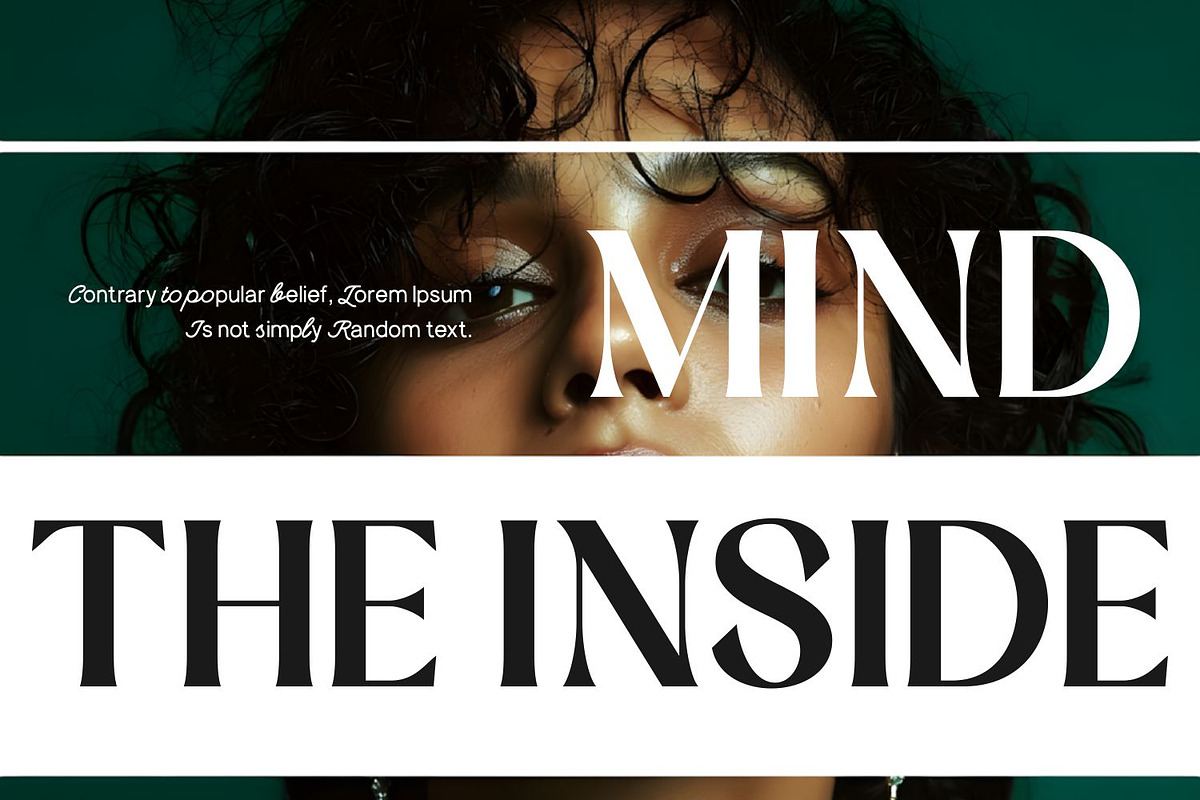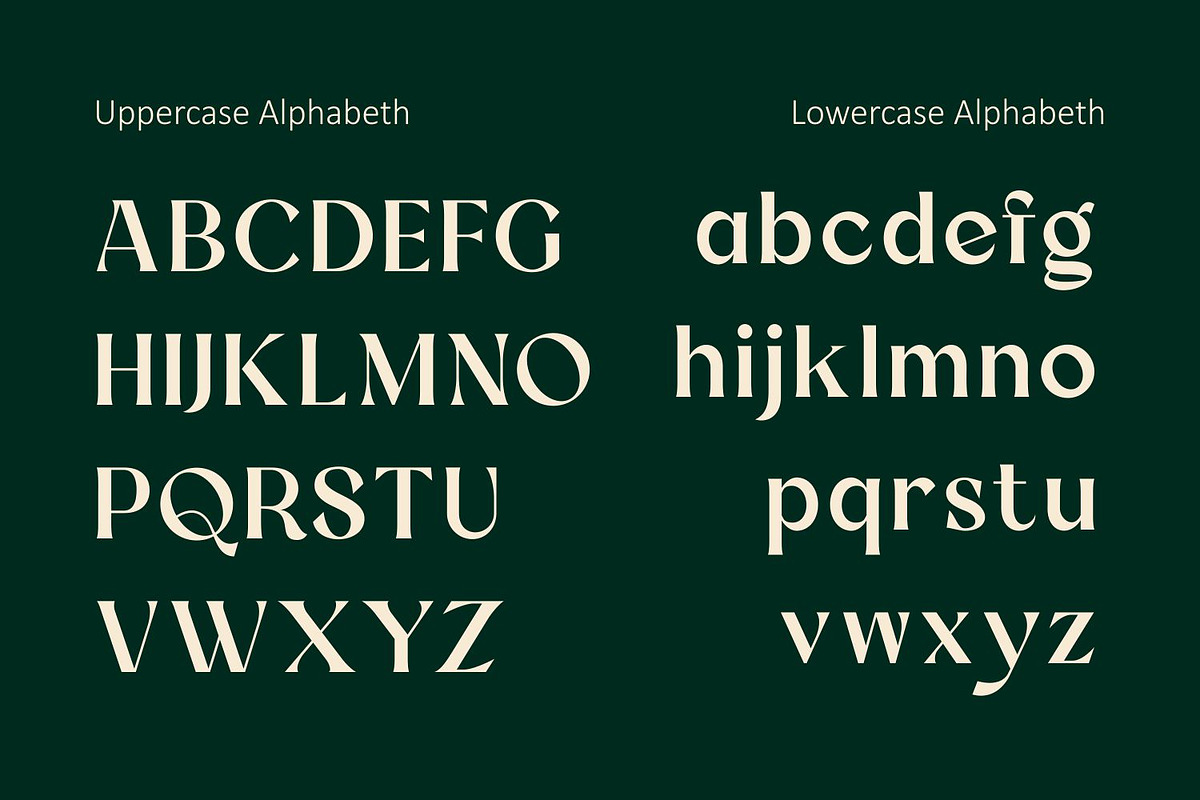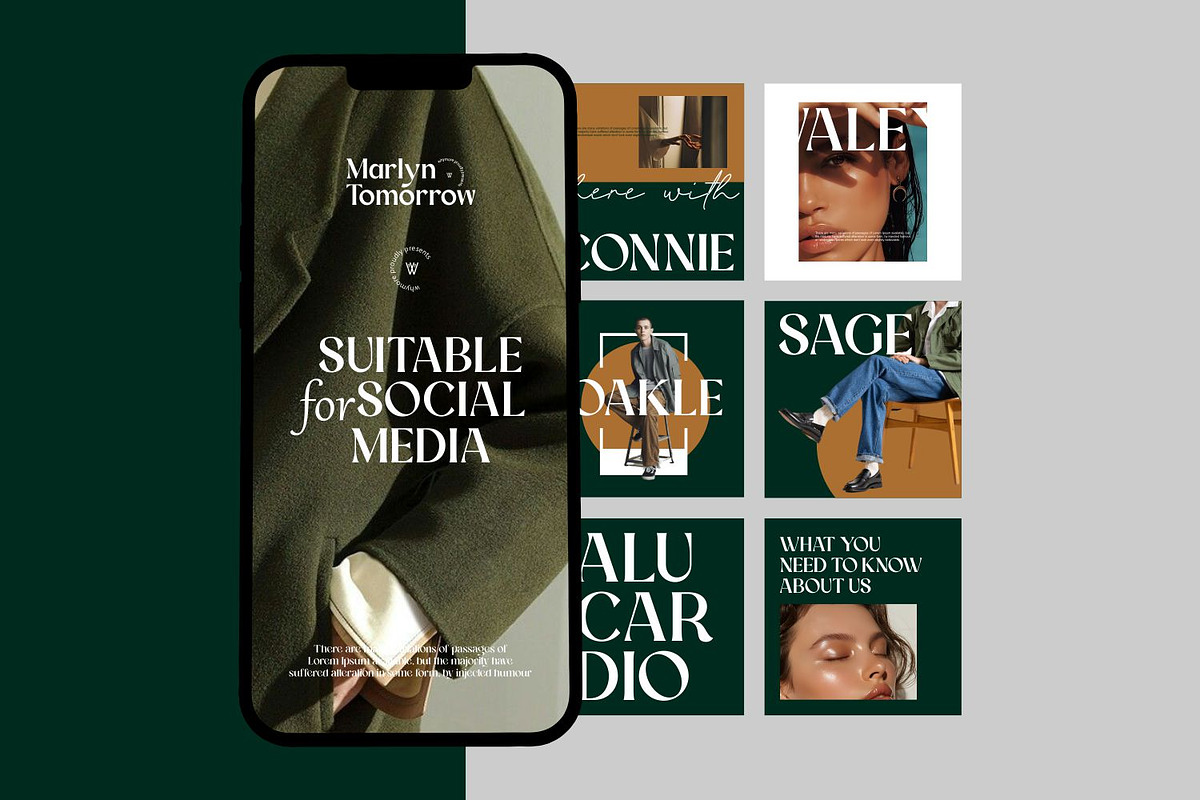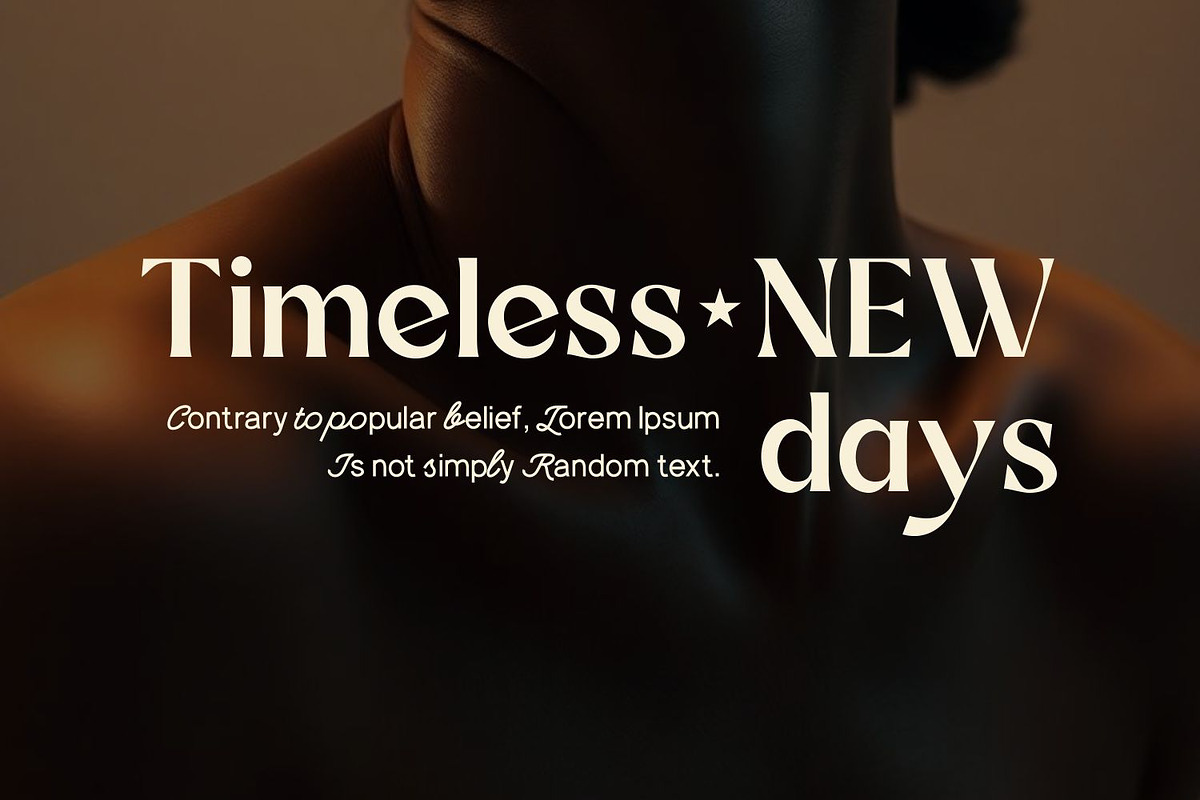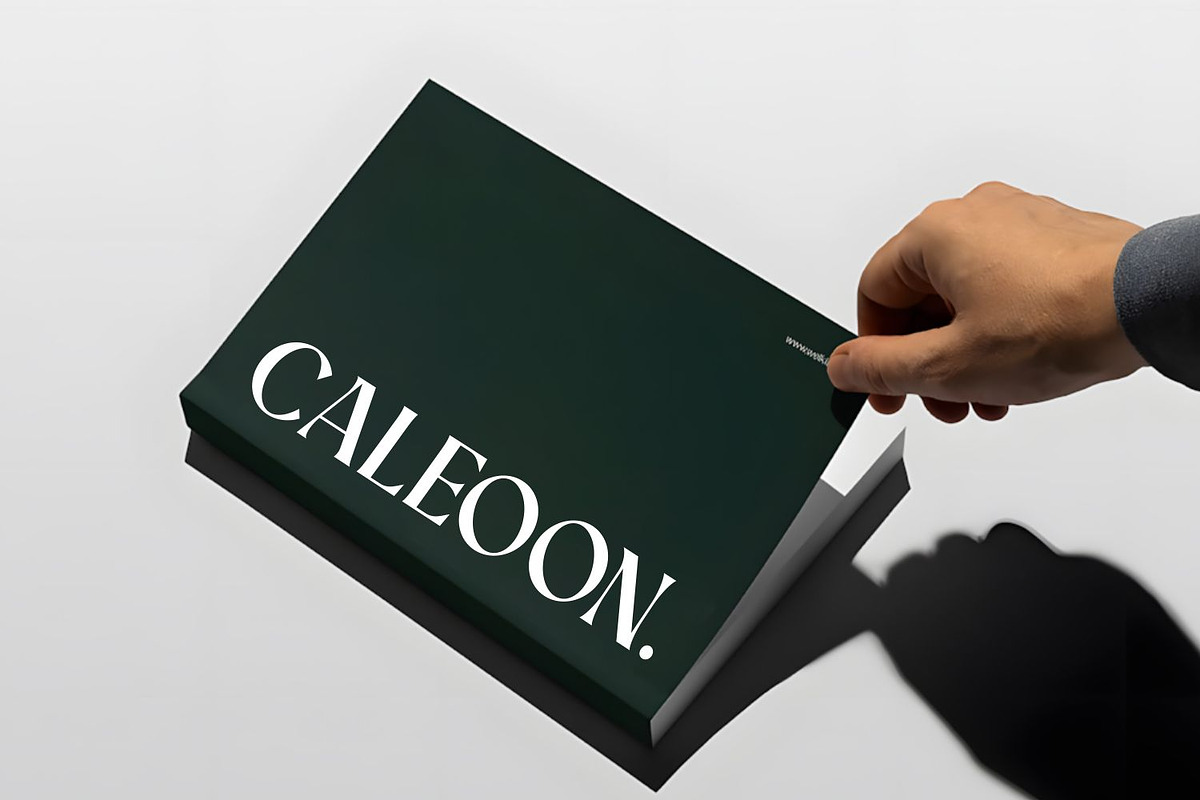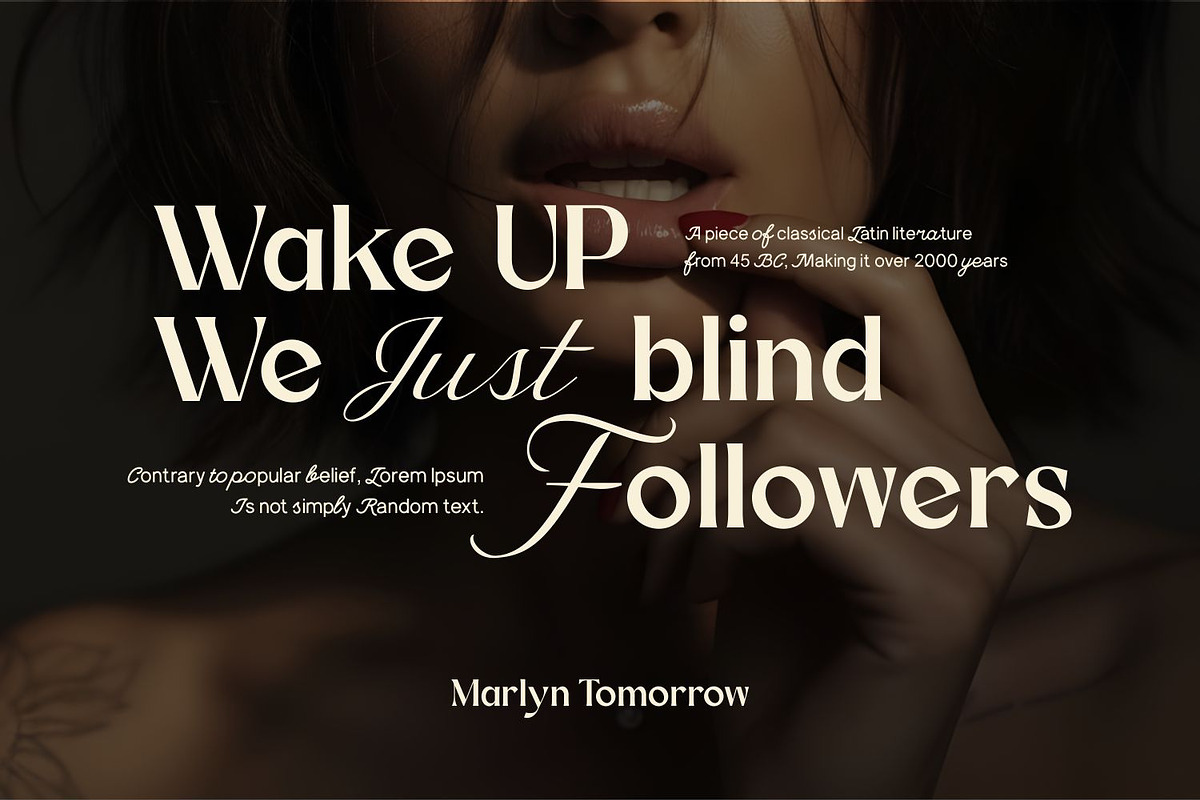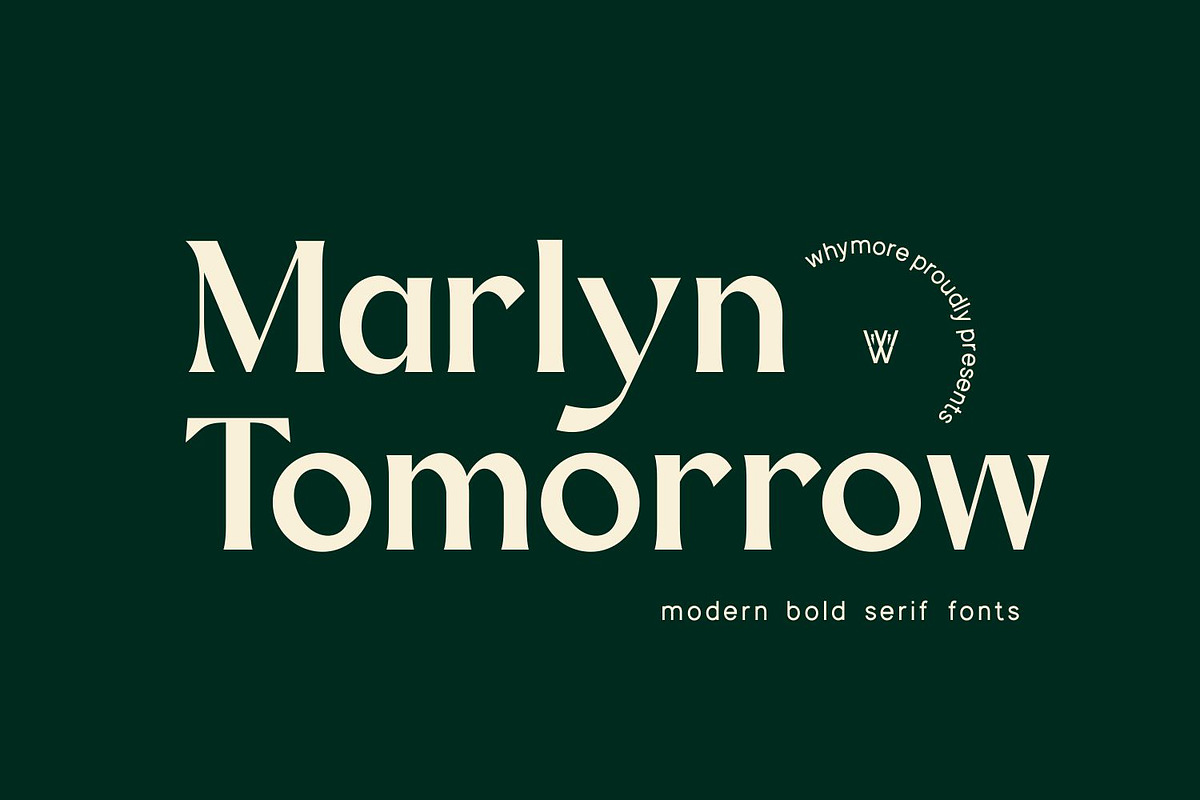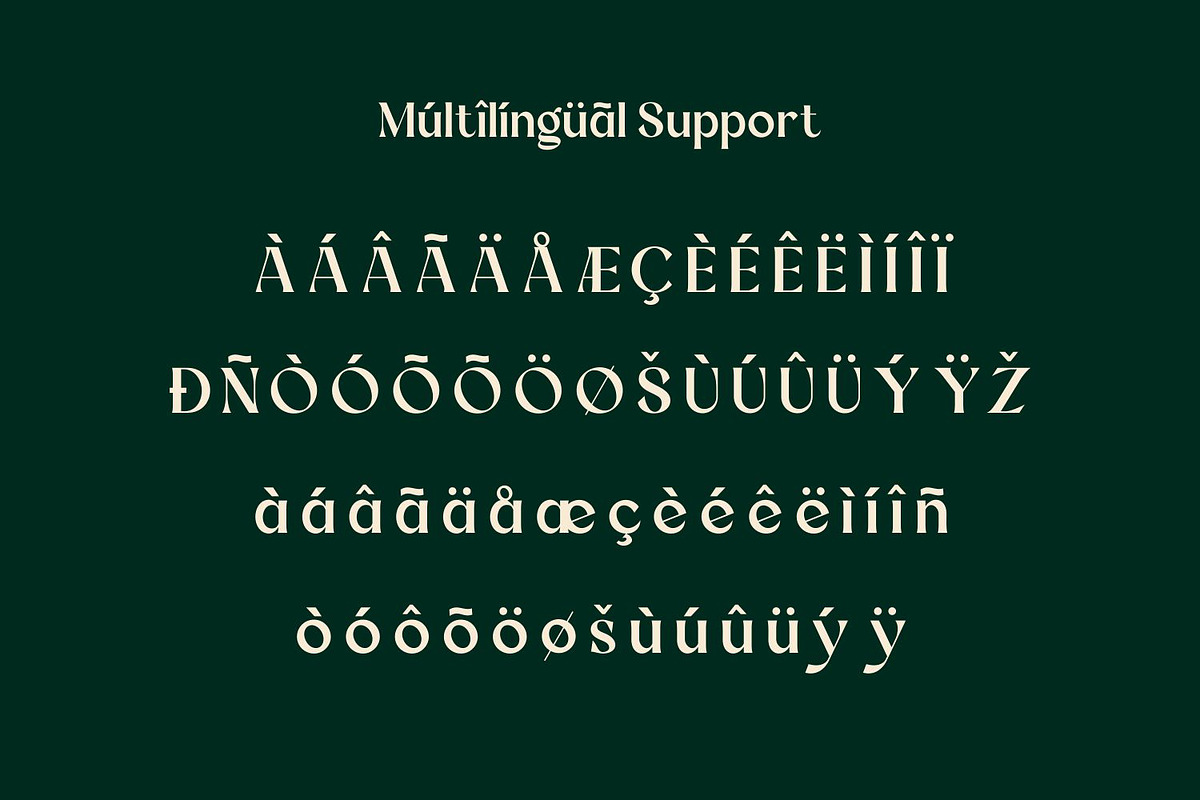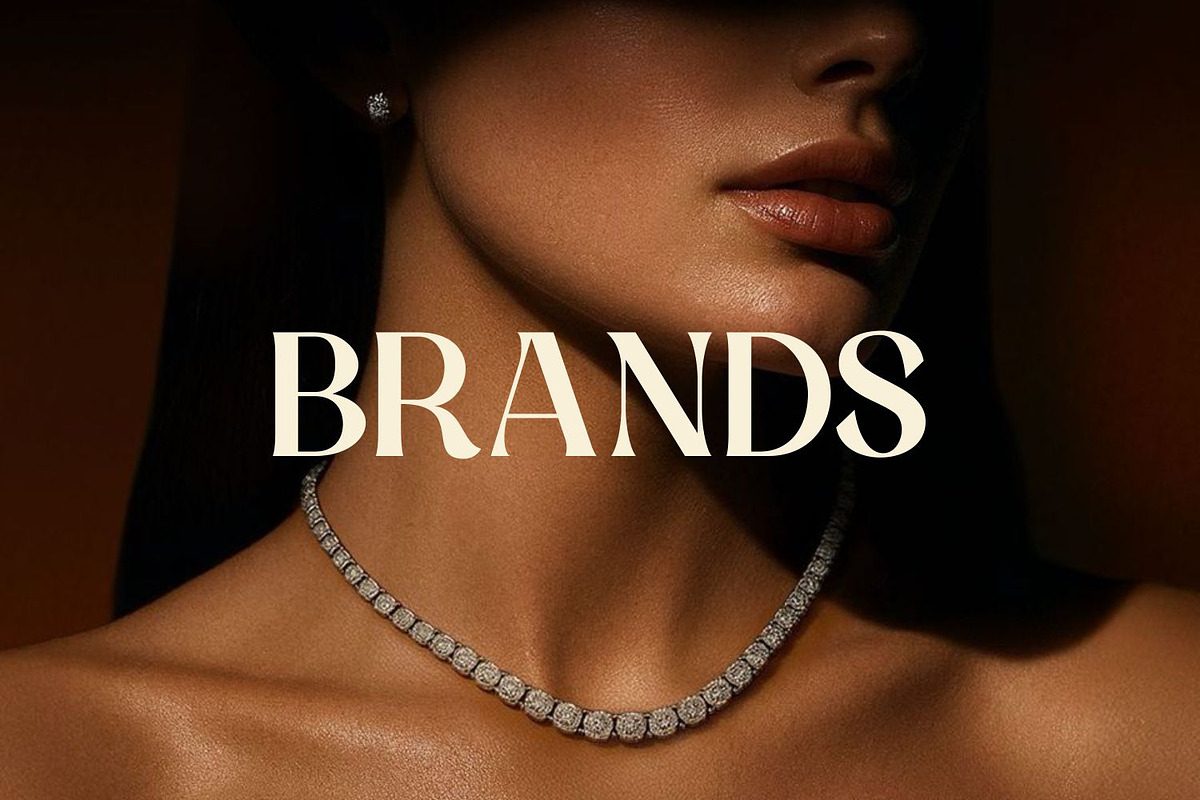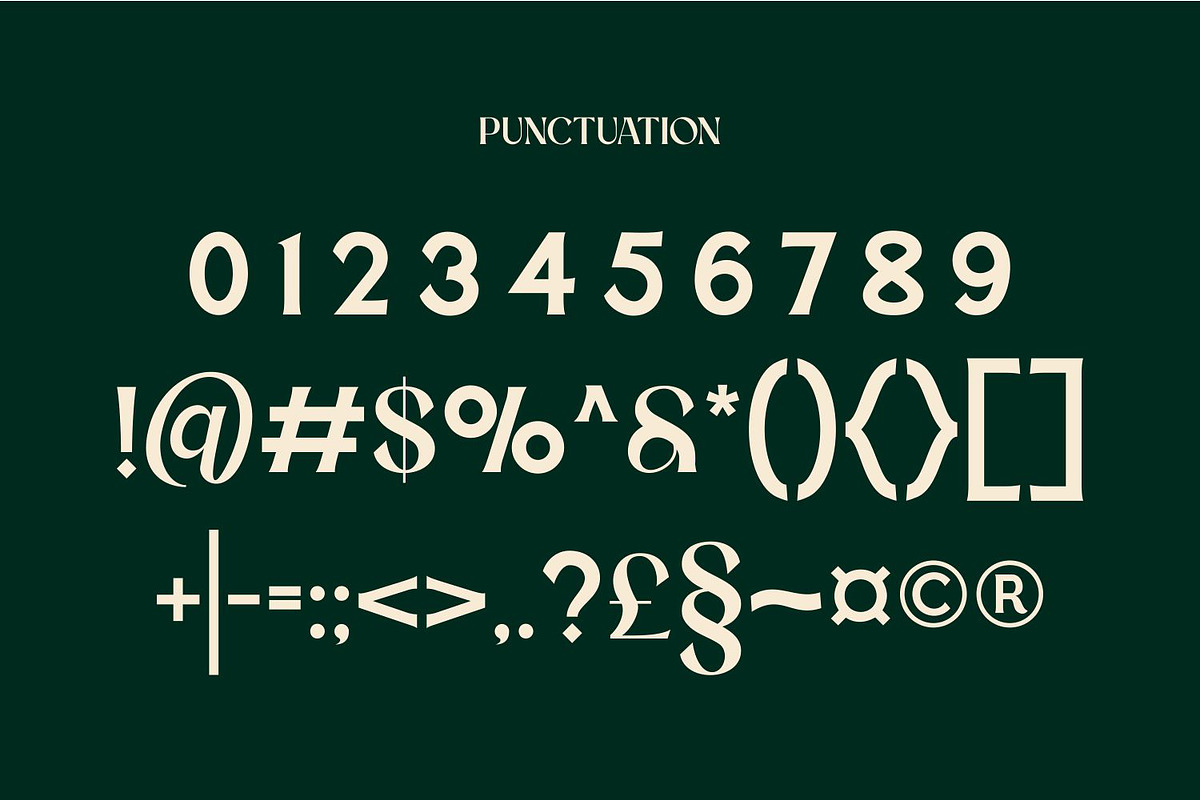
Marlyn Tomorrow Luxury Minimal Serif
Marlyn Tomorrow is a luxury minimal serif typeface designed for refined branding and sophisticated visual identities.
Crafted with elegant proportions, clean high-contrast strokes, and timeless serif details, this font delivers a confident yet graceful presence. It blends modern minimalism with classic editorial beauty — making it perfect for brands that want to look premium, calm, and powerful.
Whether used for logos, fashion campaigns, or editorial layouts, Marlyn Tomorrow transforms simple typography into a striking brand statement.
• Luxury logo design • Fashion & beauty branding • Editorial & magazine layouts • Social media templates • Café & restaurant identity • Wedding stationery • Packaging design • Website headlines
Marlyn Tomorrow is designed to give designers instant elegance.
Type it once — it feels like a logo.